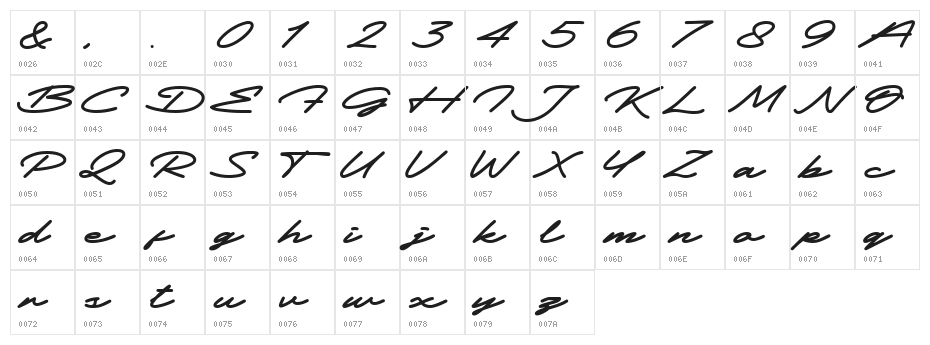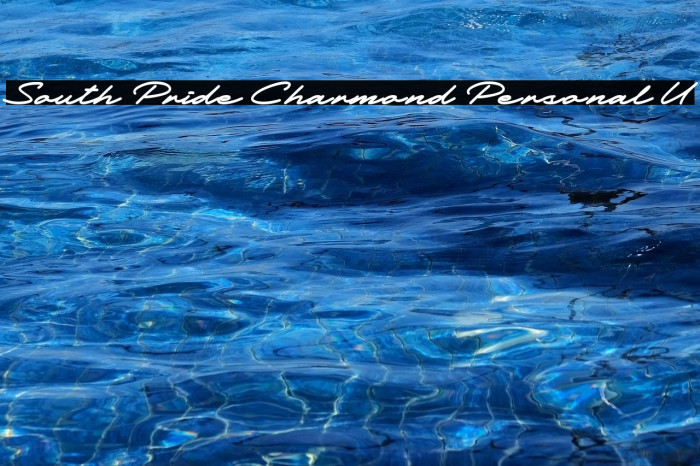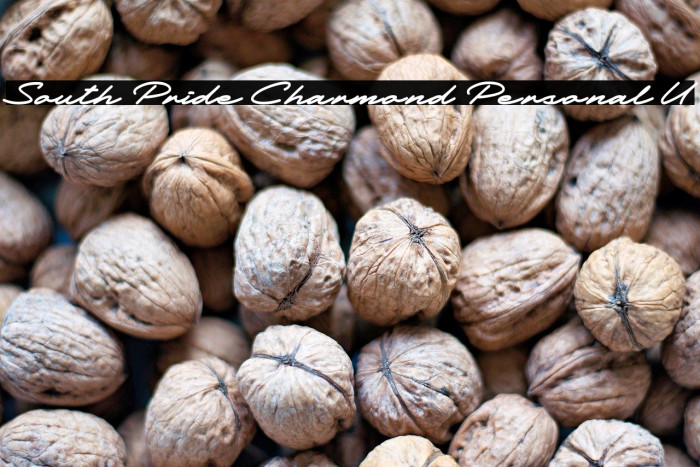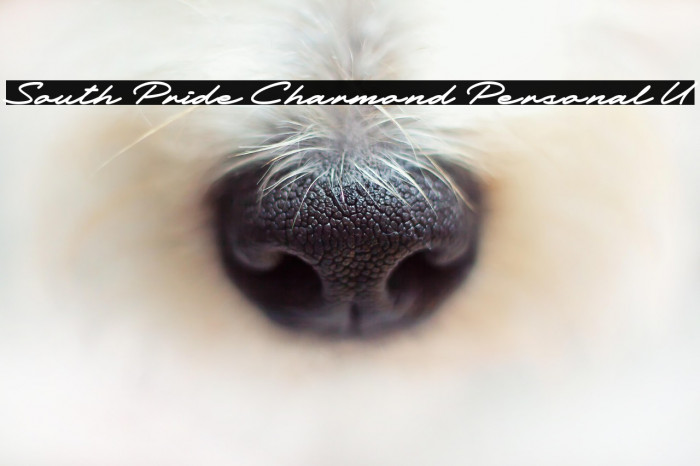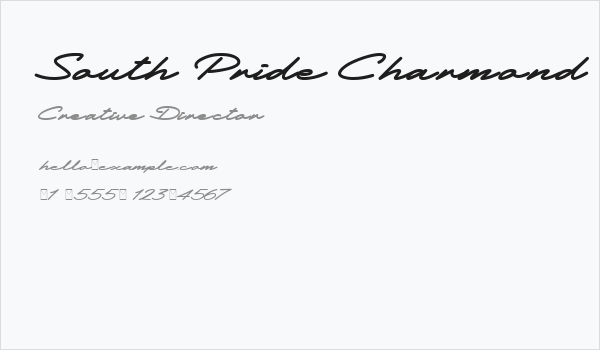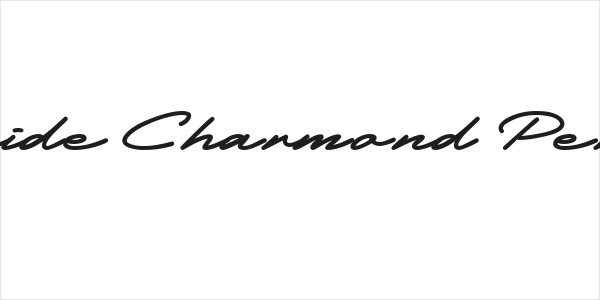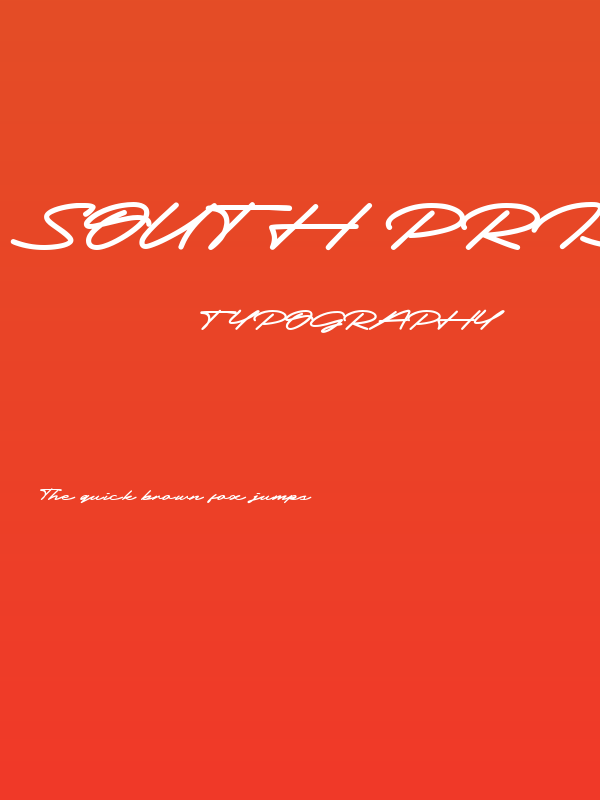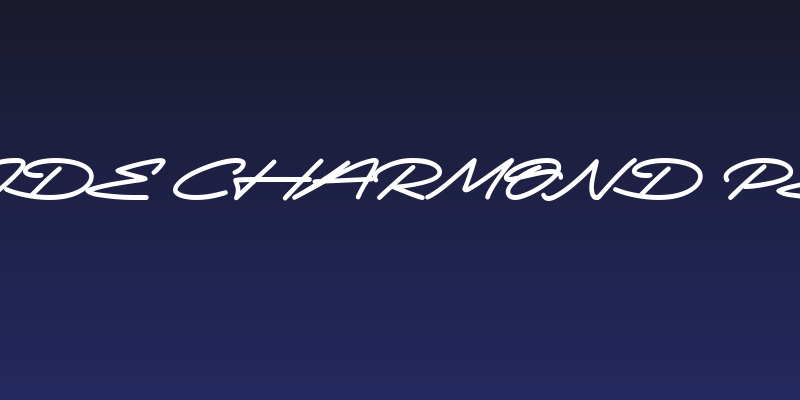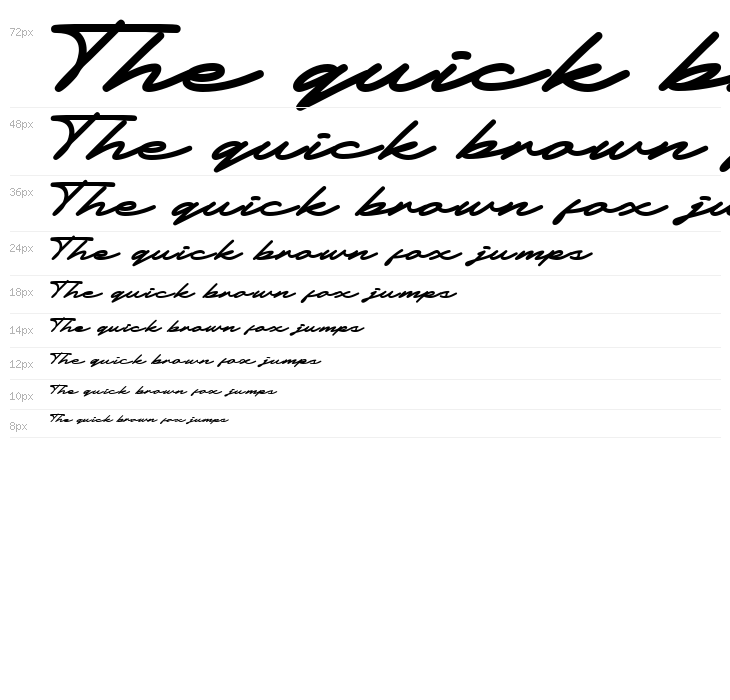
South Pride Charmond Personal U Font
South Pride Charmond Personal U Description
This font exudes a sense of elegance and fluidity, characterized by its cursive, handwritten style. The letters are interconnected, creating a seamless flow that mimics natural handwriting. The uppercase letters are slightly more elaborate, with extended strokes and flourishes, while the lowercase letters maintain a consistent, smooth appearance. The numerals are designed to match the overall style, with a slight slant and rounded edges. The special characters, such as the ampersand, are crafted with the same attention to detail, ensuring they blend harmoniously with the rest of the font.
| Proposed Projects | Ideal for wedding invitations, personal branding, greeting cards, and elegant stationery. |